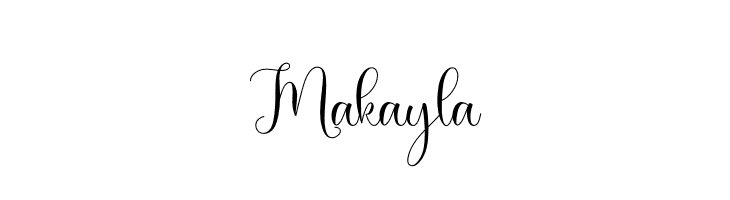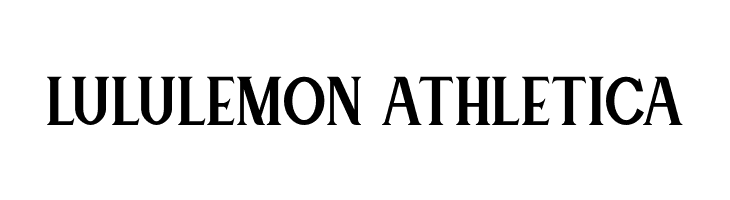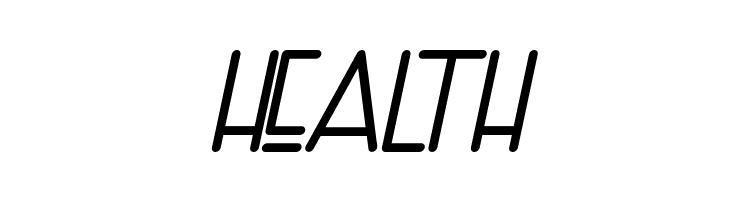
A bold, playful handwritten font with rounded edges and a casual style.
An elegant script font with flowing, cursive letterforms and ornate flourishes.
An elegant script font with flowing, cursive lines and ornate details.
A bold, decorative font with tribal-inspired curves and sharp edges.
A playful, handwritten font with tall, narrow letters and rounded edges.
A modern, rounded sans-serif font with consistent stroke widths and balanced spacing.
A playful, hand-drawn font with a whimsical and informal style.
A modern, geometric font with rounded edges and a clean appearance.
A modern, rounded font with consistent line weight and excellent readability.
A sleek, modern italic font with consistent stroke width and balanced proportions.
A modern, bold, rounded sans-serif font with uniform character width.
A modern, geometric font with clean lines and sharp angles.
A modern, geometric font with a clean and minimalistic design.
A modern, geometric font with clean lines and balanced characters.
A sleek, modern font with thin, clean lines and geometric precision.
A modern, geometric sans-serif font with clean lines and balanced proportions.
A bold, playful handwritten font with dynamic strokes.
A playful, handwritten font with irregular, whimsical strokes.
A bold, robust serif font with strong strokes and commanding presence.
A whimsical, hand-drawn font with playful, irregular strokes.
من المفضلات مؤخرًا Jomblo-Ngenes-Bold, FlamingoLicht, FlamingoSolide, RockyCreek and MiltonOneBold. توازن هذه الخطوط بين الوضوح والشخصية وتناسب العلامات التقنية، وتصاميم التحرير، ومرئيات الشبكات الاجتماعية.